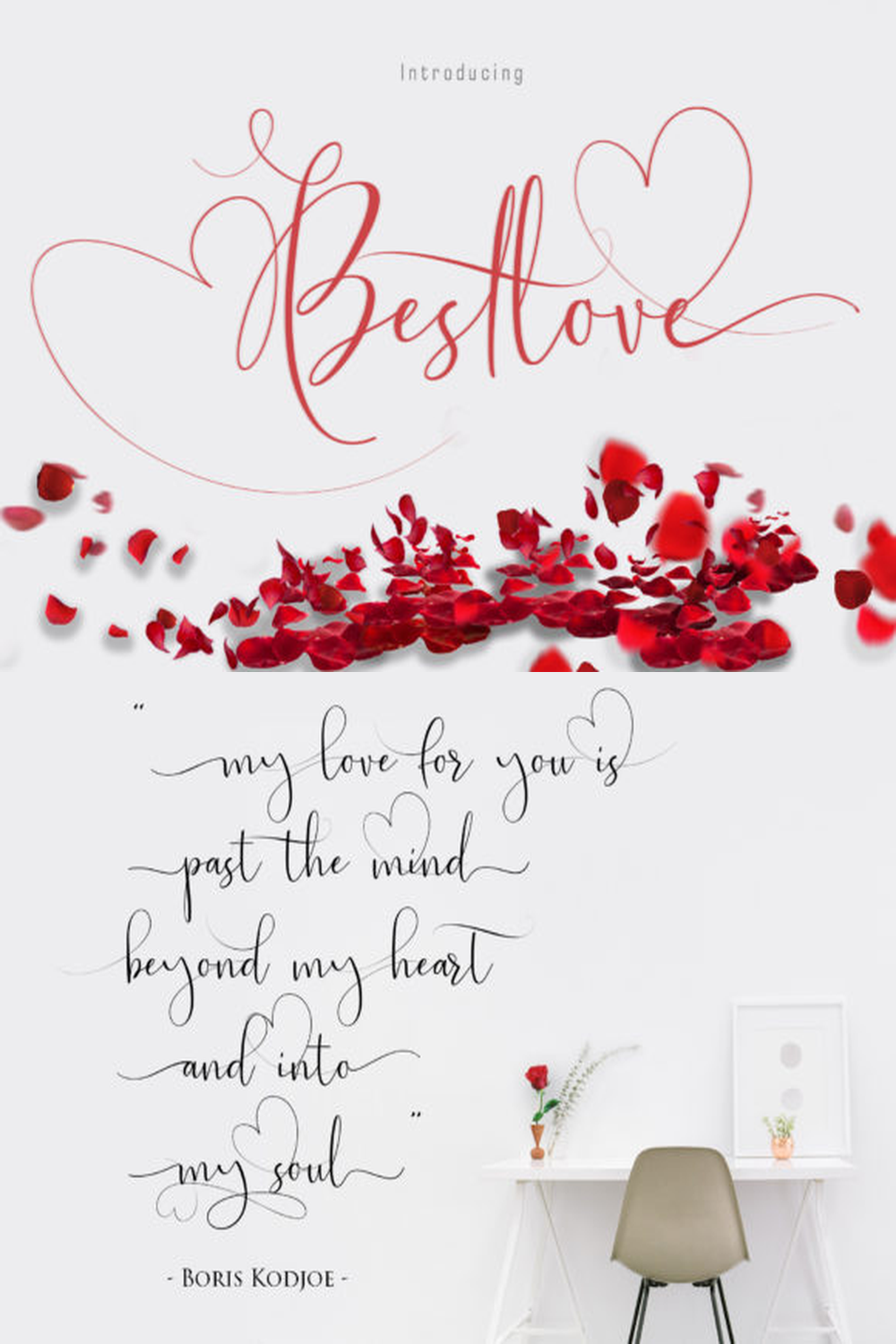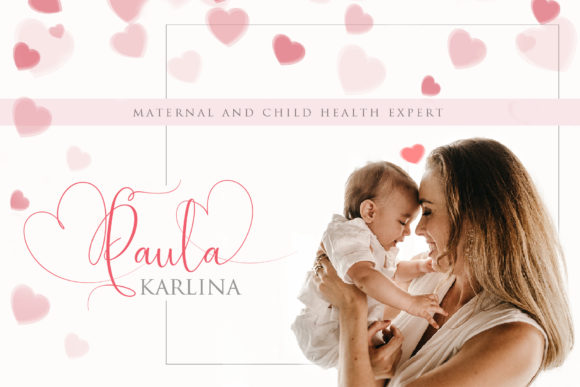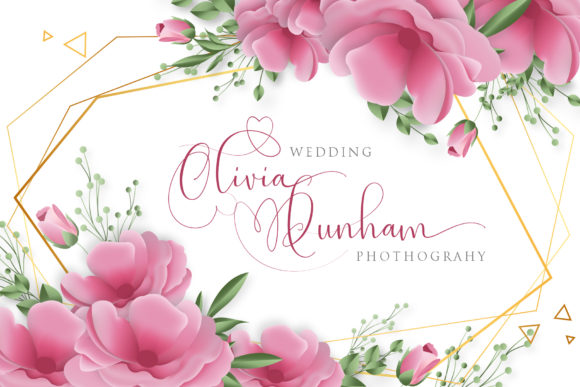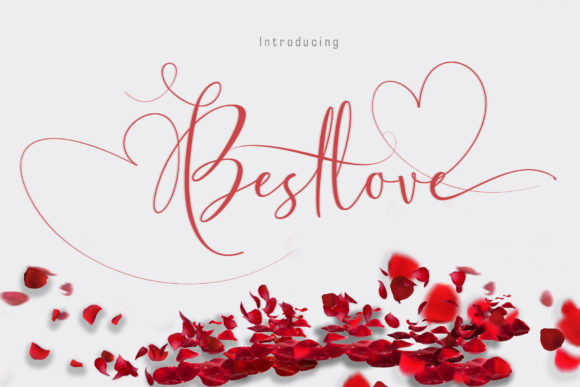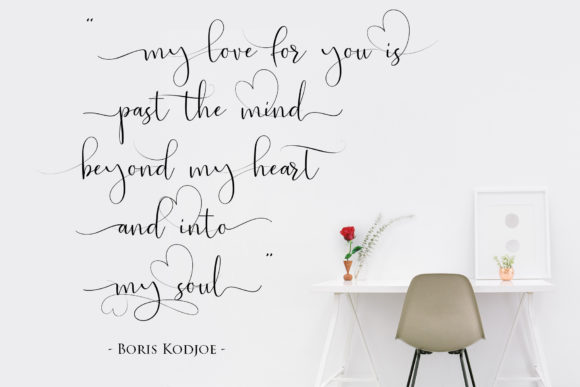
Bestlove Font: Romantic Calligraphy for Wedding & Feminine Branding
About the Bestlove Font
The Bestlove Font offers a perfect balance of form and function for your design needs. Fall in love with Bestlove. This one-of-a-kind handwritten font will turn any design project into a lovely stand out.
Bestlove Font Usage Examples